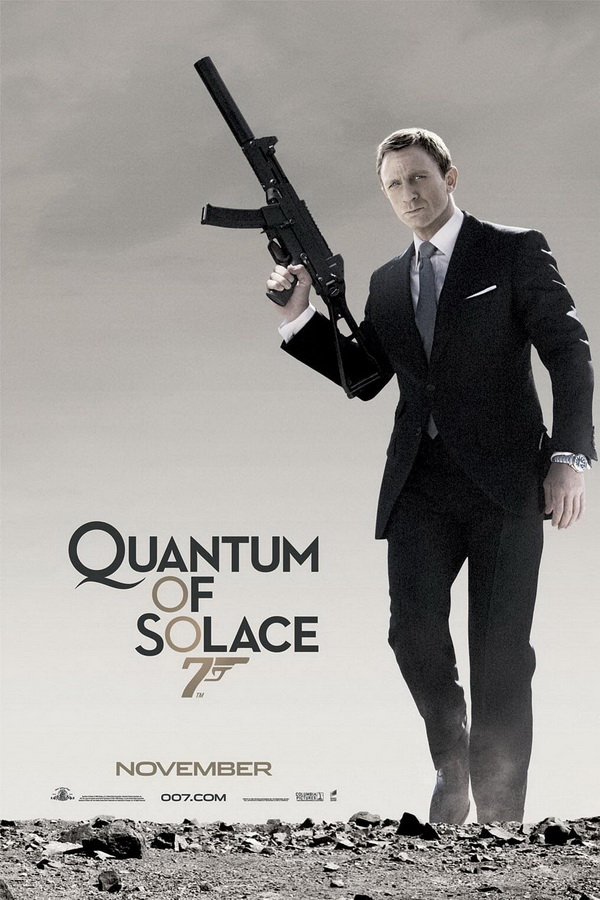
Quantum of Solace Font
CrimeQuantum of Solaceis the 22nd James Bond film and a direct sequel to Casino Royale. It follows Bond as he seeks revenge for the death of his lover and uncovers a sinister organization with ties to his past.
The title of the film, ''Quantum of Solace'' features a customized "Q" lettering, while the rest of the letters resemble the Neutra Display Bold font, designed by Houseind. The Neutra Display Bold is a commercial font and available for purchase here.